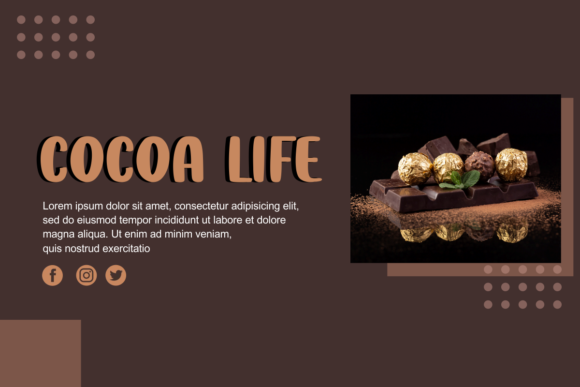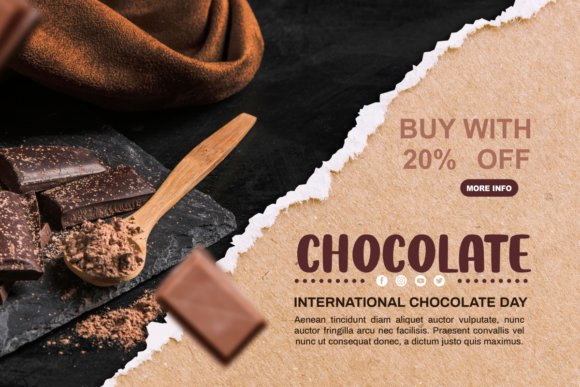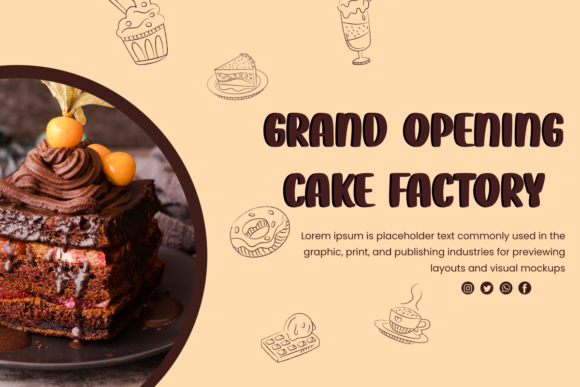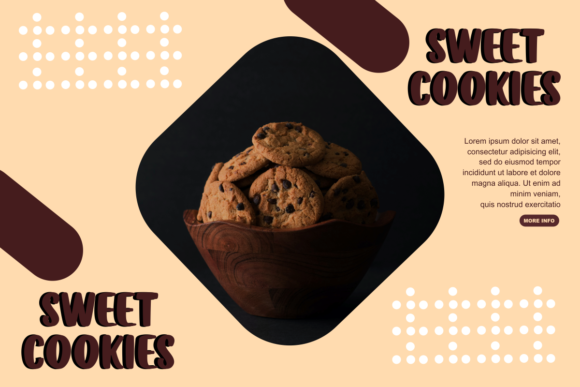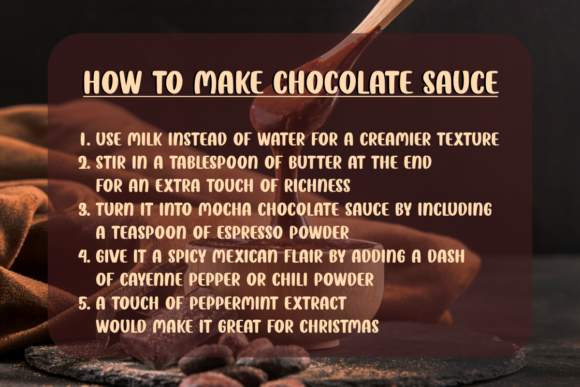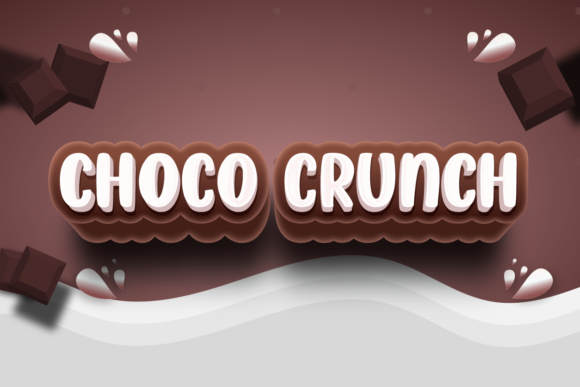
Introducing Choco Crunch Font: The Cool, Chunky, and Friendly Display Font
Are you tired of using the same old fonts in your designs? Do you want to add a touch of personality and whimsy to your creations? Look no further than Choco Crunch Font, a cool, chunky, and friendly display font that’s sure to become a favorite in your font library.
What is Choco Crunch Font?
Choco Crunch Font is a unique and versatile display font that’s perfect for a wide range of design projects. Its chunky and friendly design makes it ideal for use in headlines, titles, and other display text, while its cool and edgy vibe ensures it will add a touch of sophistication to any design.
Key Features of Choco Crunch Font
- Cool and Chunky Design: Choco Crunch Font features a bold and chunky design that’s sure to grab attention.
- Friendliness and Approachability: Despite its edgy vibe, Choco Crunch Font has a friendly and approachable feel that’s perfect for designs that need to connect with audiences.
- Versatility: Choco Crunch Font can be used for a wide range of design projects, from posters and flyers to social media graphics and website headers.
- Easy to Read: Despite its bold design, Choco Crunch Font is easy to read, even at smaller sizes.
Why You’ll Love Choco Crunch Font
So why should you add Choco Crunch Font to your font library? Here are just a few reasons:
- Enhance Any Creation: Whether you’re working on a graphic design project, crafting a social media post, or creating a website, Choco Crunch Font has the potential to enhance any creation.
- Add Personality to Your Designs: With Choco Crunch Font, you can add a touch of personality and whimsy to your designs, setting them apart from the crowd.
- Save Time: With a font that’s versatile and easy to use, you can save time and focus on other aspects of your design.
How to Use Choco Crunch Font
Choco Crunch Font is easy to use and can be incorporated into a wide range of design projects. Here are a few ideas to get you started:
- Posters and Flyers: Use Choco Crunch Font to create eye-catching headlines and titles for posters and flyers.
- Social Media Graphics: Add a touch of personality to your social media graphics with Choco Crunch Font.
- Website Headers: Use Choco Crunch Font to create bold and eye-catching website headers.
- Branding and Packaging: Incorporate Choco Crunch Font into your branding and packaging designs to add a touch of whimsy and personality.
Tips and Tricks for Getting the Most Out of Choco Crunch Font
Here are a few tips and tricks for getting the most out of Choco Crunch Font:
- Experiment with Colors: Choco Crunch Font looks great in a wide range of colors, so don’t be afraid to experiment and find the perfect hue for your design.
- Play with Sizes: Choco Crunch Font is bold and chunky, but it can also be used at smaller sizes to create a more subtle effect.
- Combine with Other Fonts: Choco Crunch Font pairs well with a wide range of other fonts, so don’t be afraid to experiment and find the perfect combination for your design.
Choco Crunch Font is a cool, chunky, and friendly display font that’s sure to become a favorite in your font library. With its versatility, ease of use, and bold design, it’s the perfect addition to any design project. So why wait? Download Choco Crunch Font today and start adding a touch of personality and whimsy to your designs!